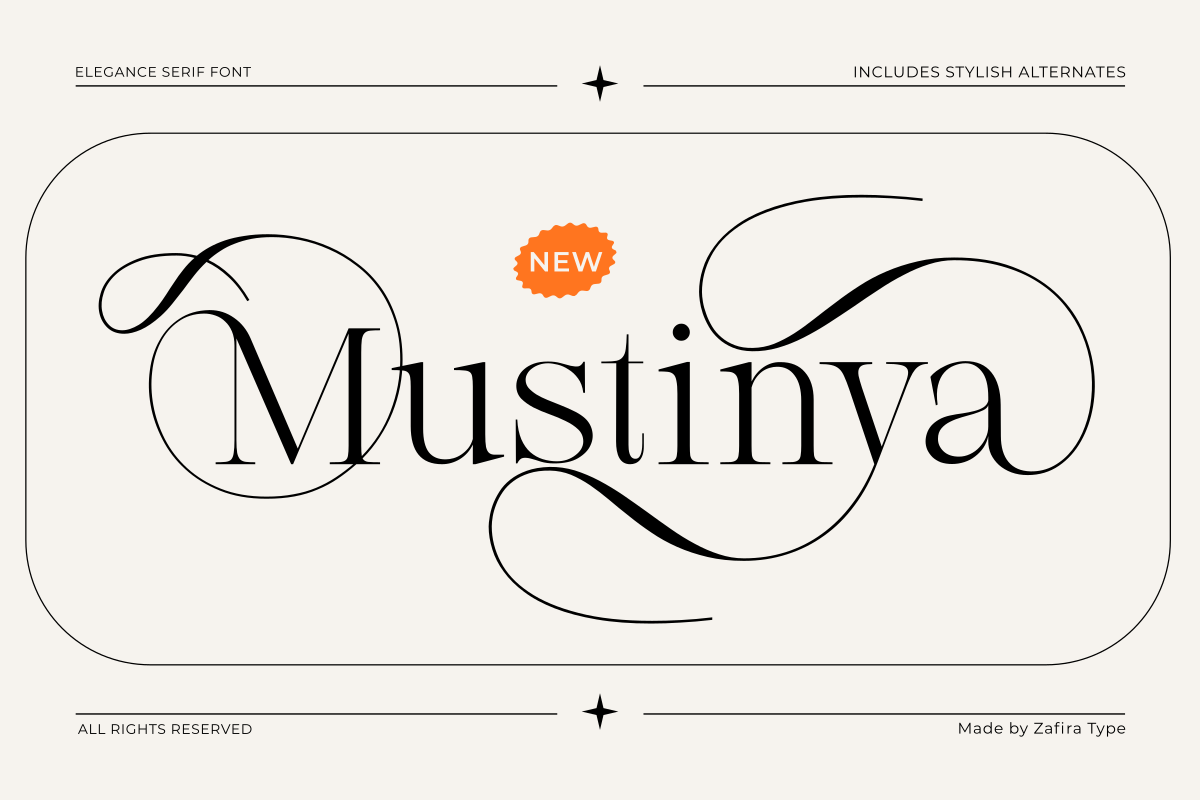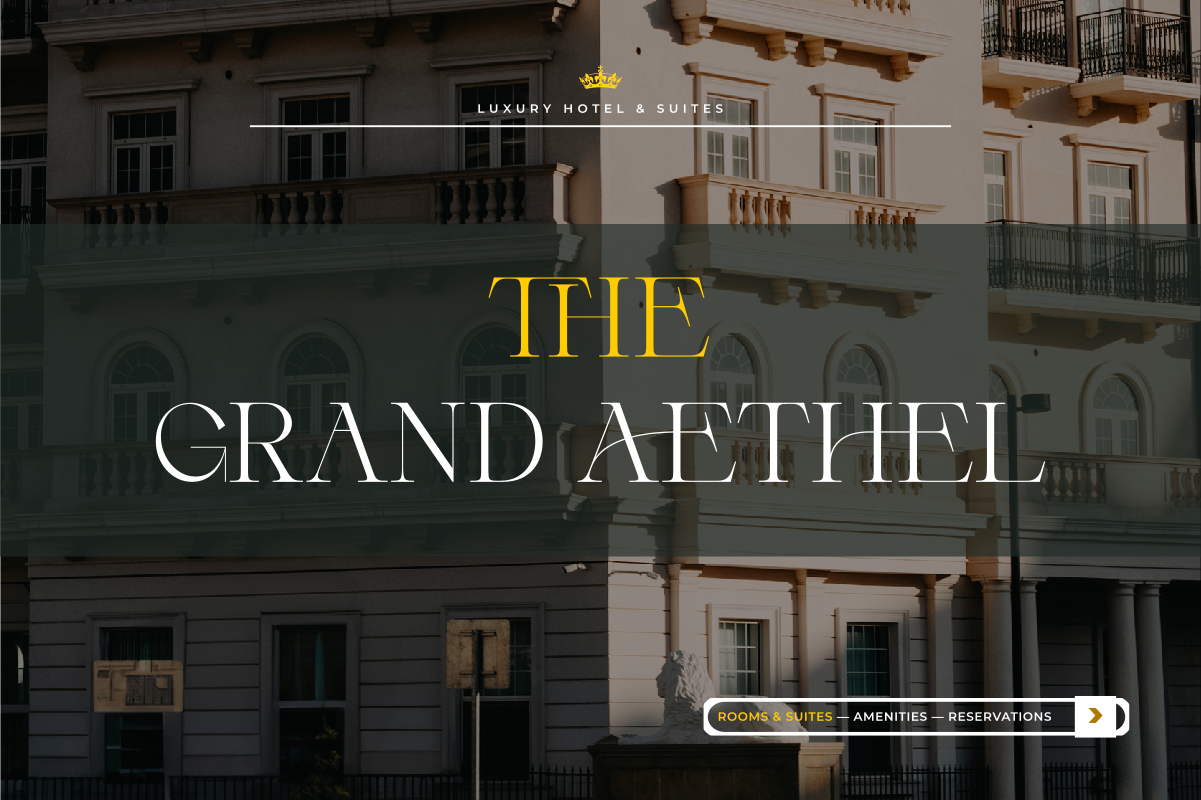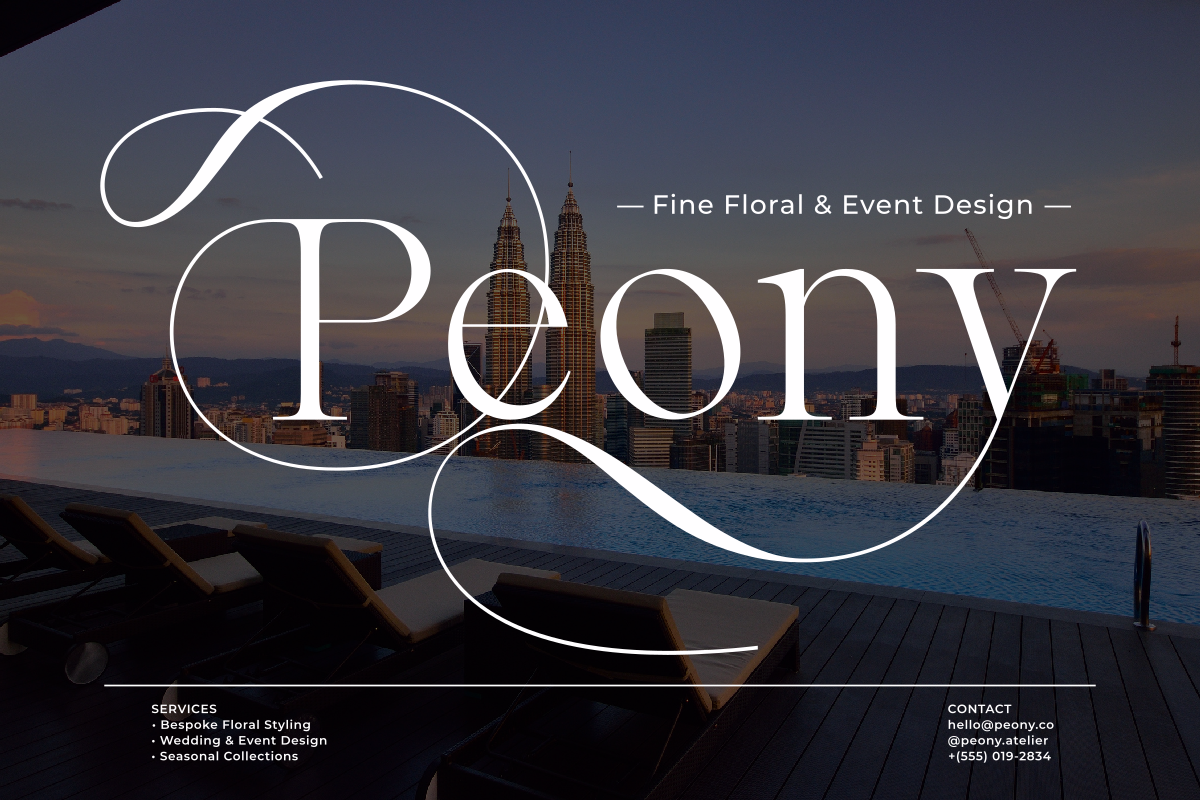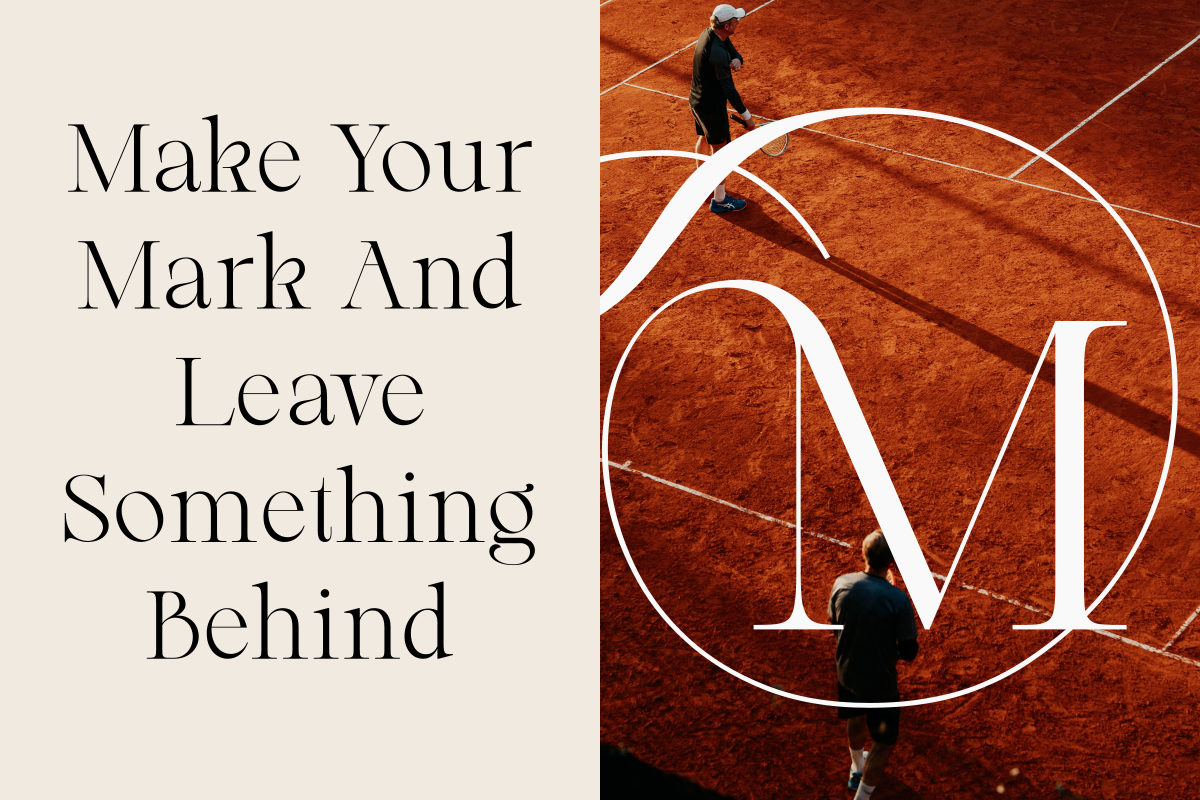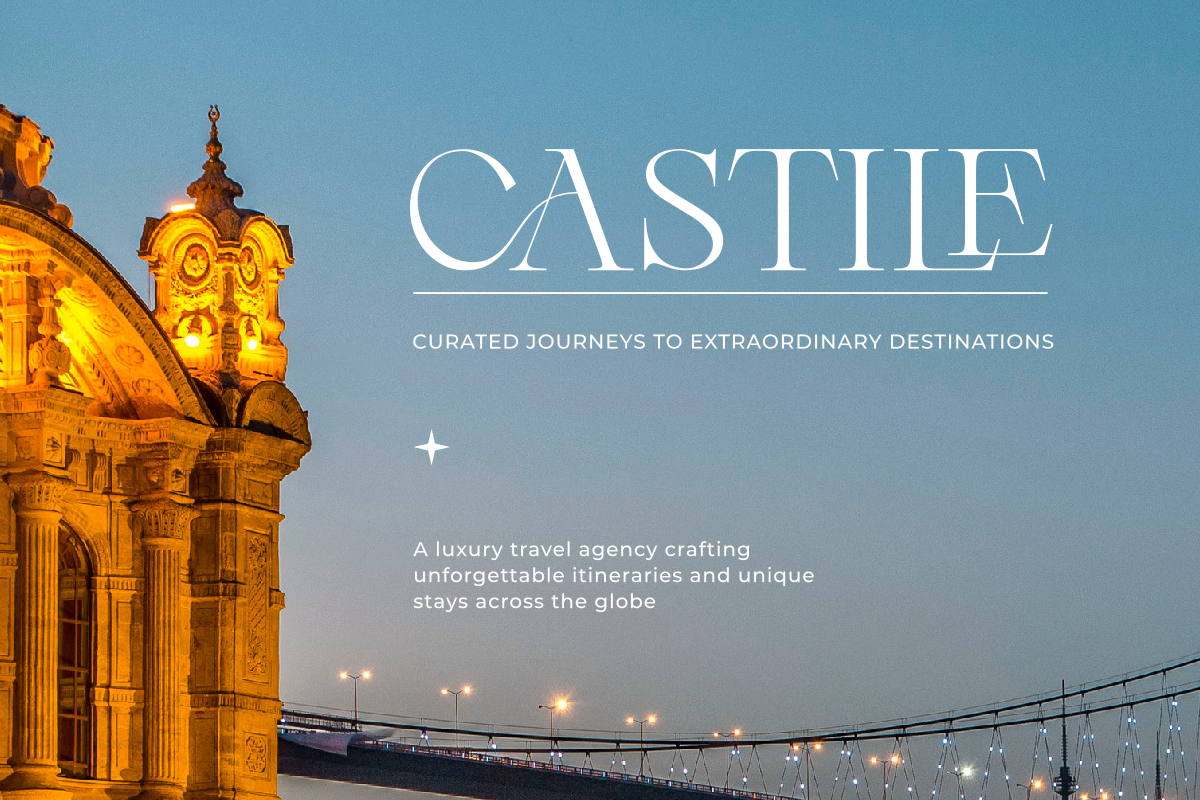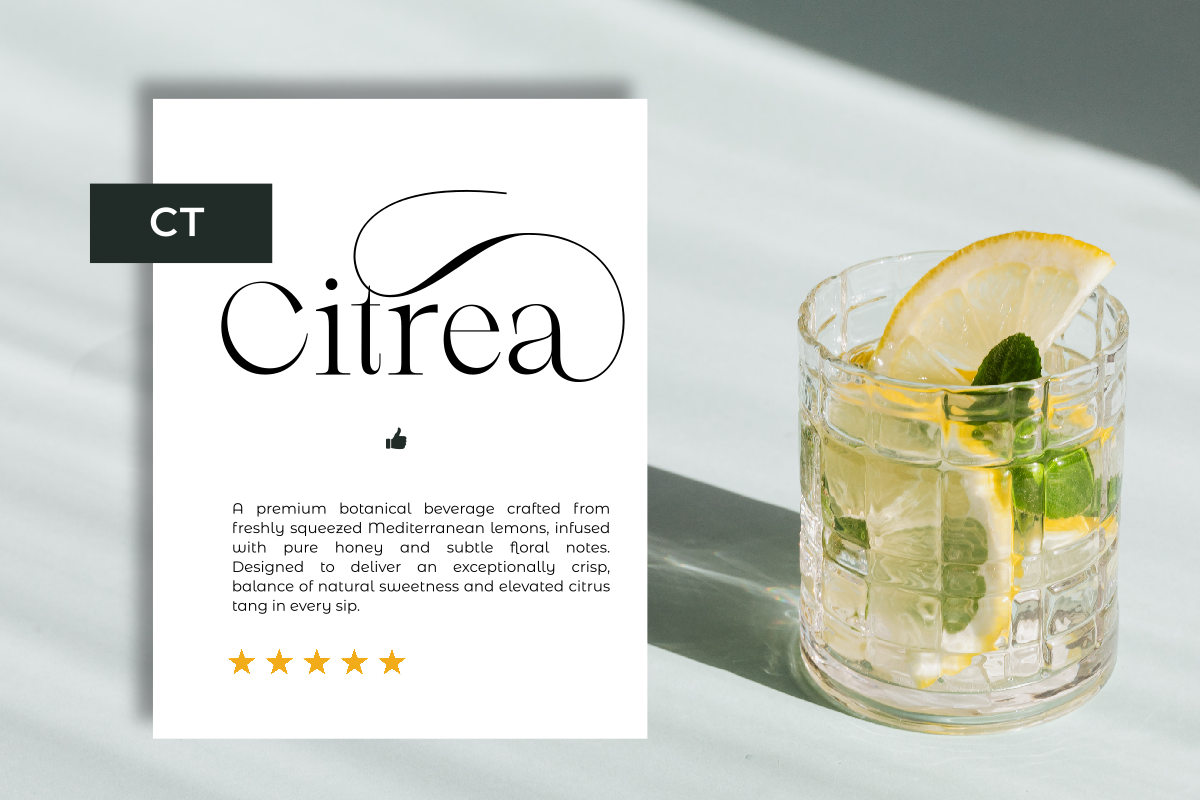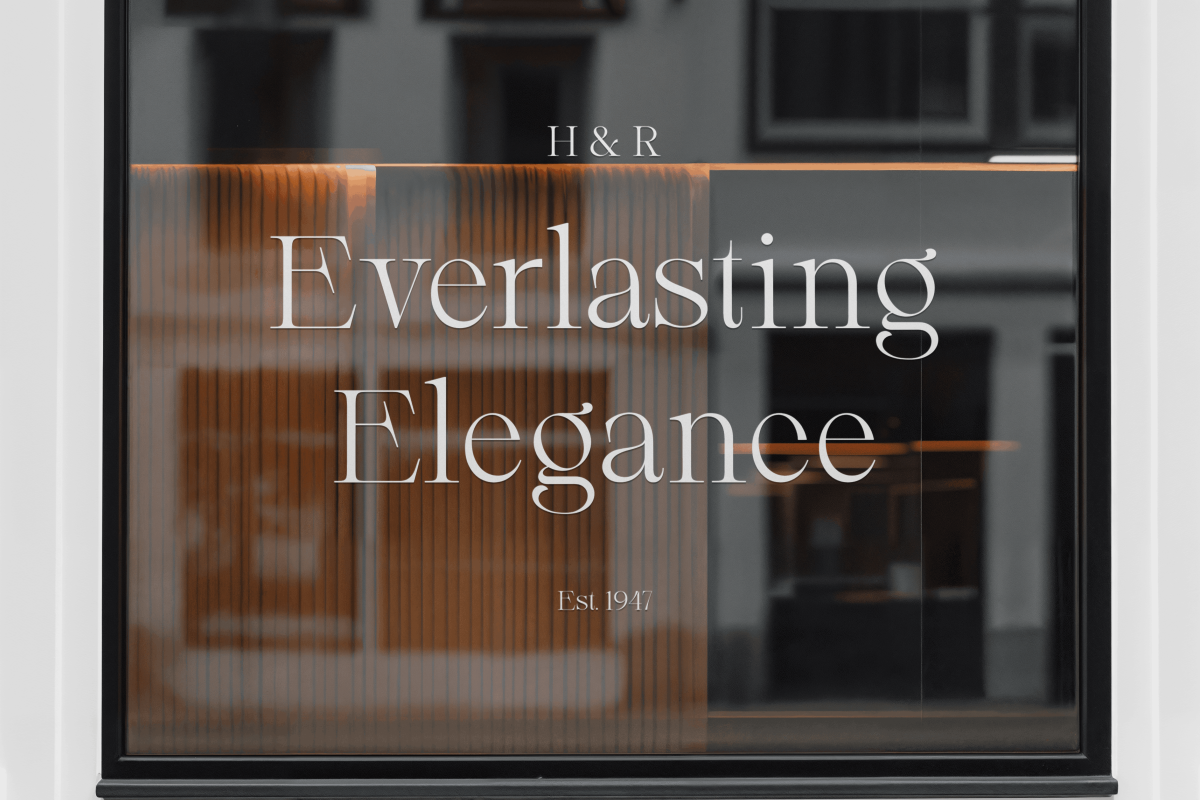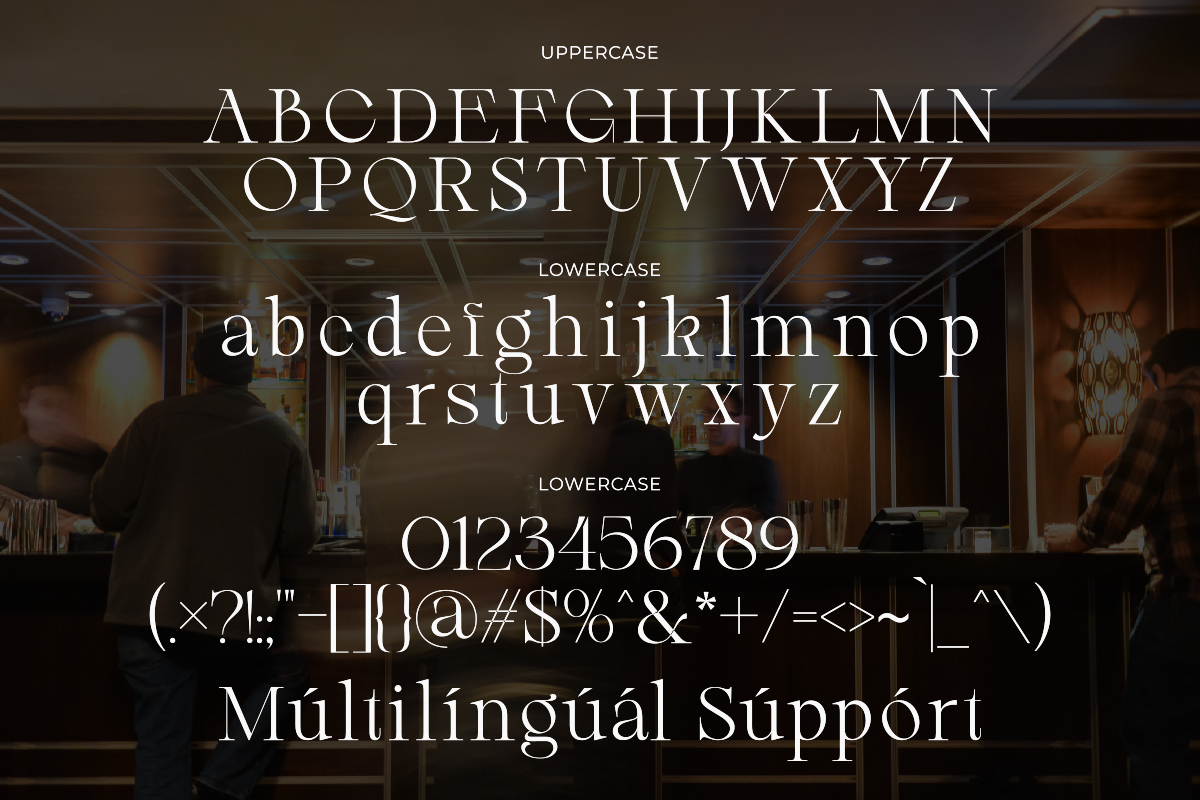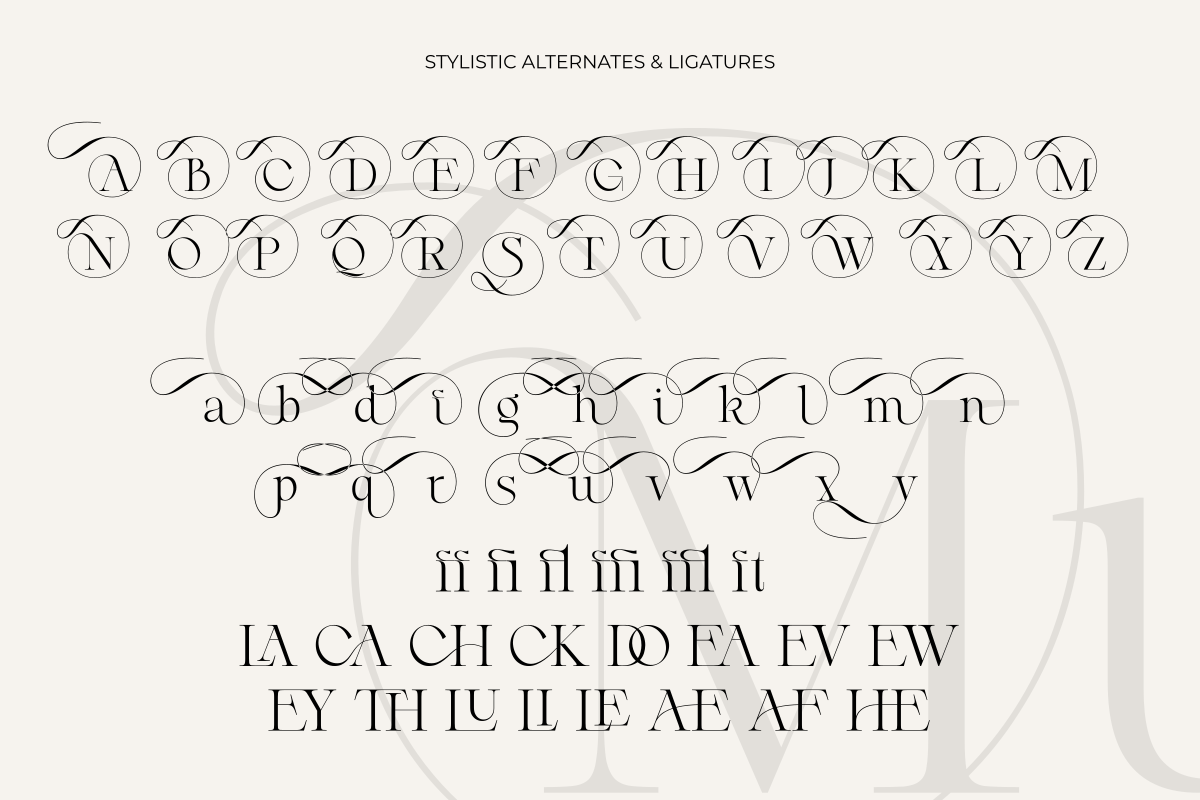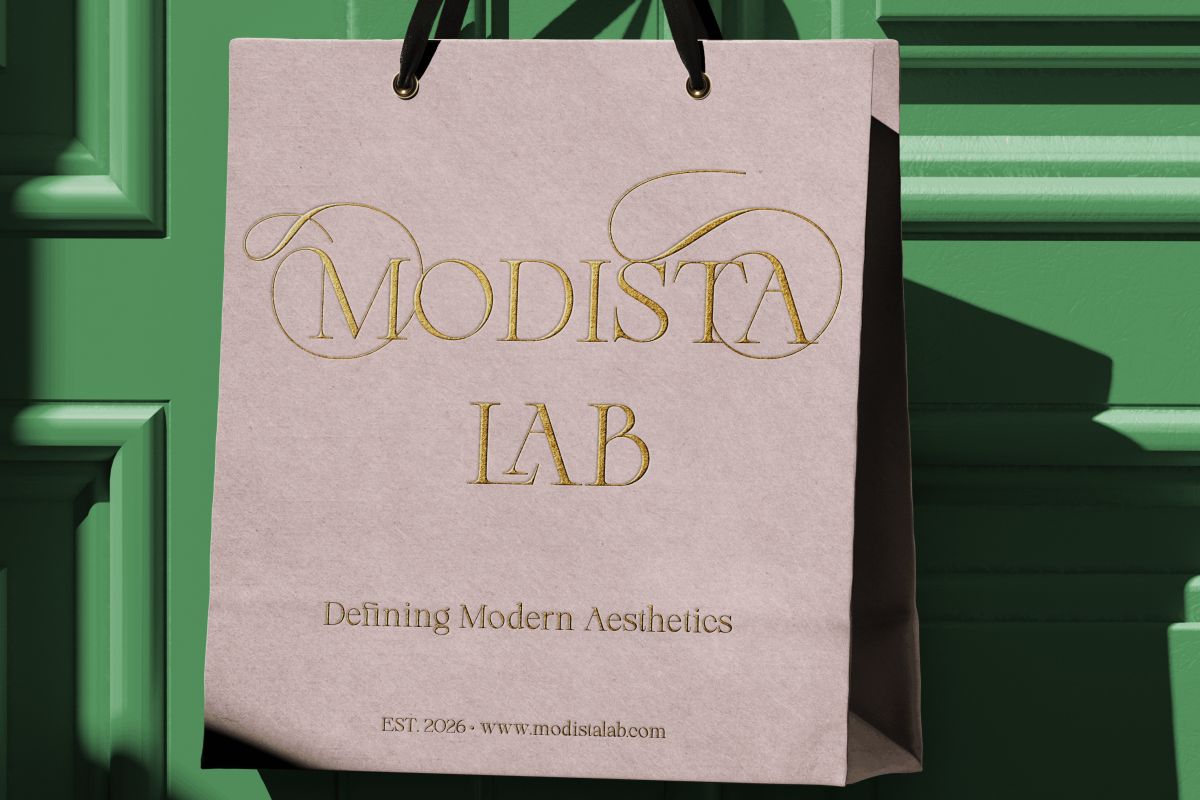
Mustinya is a refined and timeless serif font designed to bring elegance, grace, and subtle sophistication to your creative projects. Crafted with delicate curves and high visual contrast, Mustinya seamlessly blends classic typographic aesthetics with a clean modern feel.
This font family features 2 essential styles: Regular and Italic. The Regular style carries a poised and structured presence, while the Italic style adds a fluid, poetic rhythm—making them the perfect duo for expressive typography and harmonious layouts.
Key Features:
2 Matching Styles: Regular & Italic.
Refined Aesthetics: Graceful serifs and balanced proportions designed for high visual appeal.
Multilingual Support: Complete character set for Latin-based languages.
OpenType Features: Includes custom ligatures and stylistic alternates for dynamic, custom-looking designs.